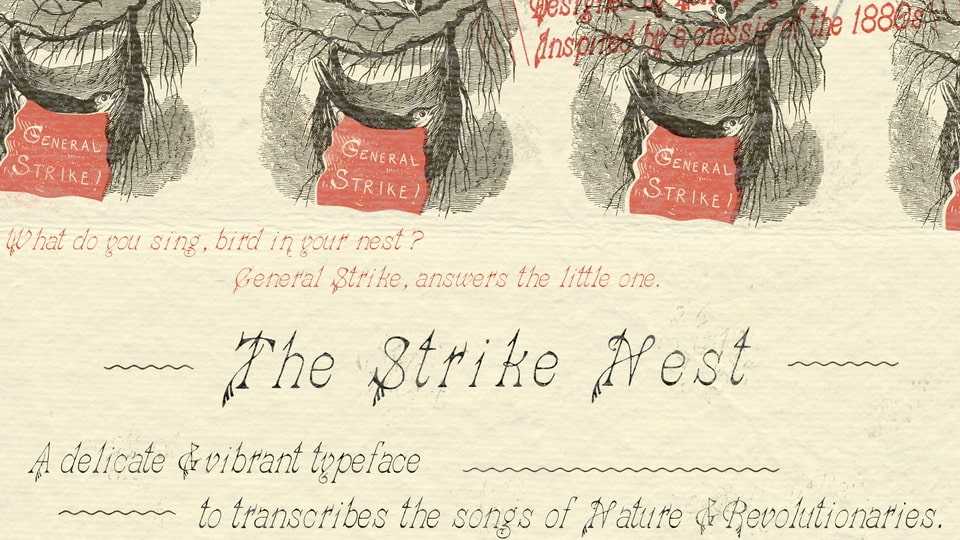
Download The Strike Nest font, a delicate and vibrant typeface to transcribe songs of Nature and Revolutionaries. It is a revival of a classic Victorian typeface – Gazelle – in an expanded and slightly distressed version
Designer: Loki Gwynbleidd